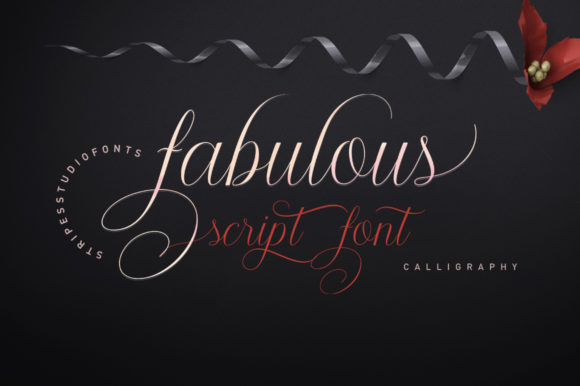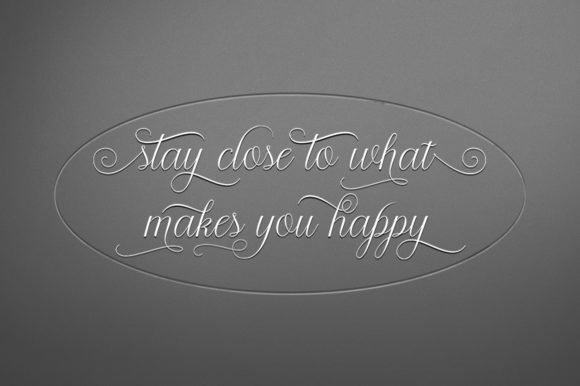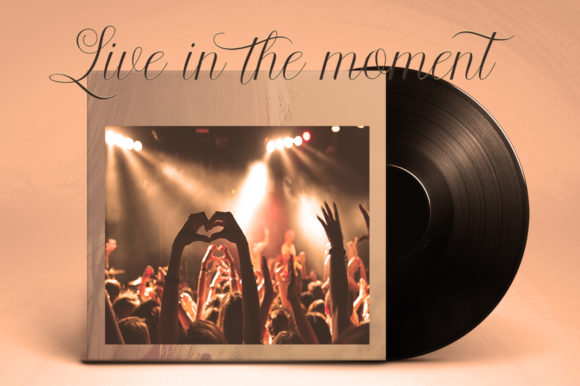
About Fabulous Script Font
The Fabulous Script stands out as a contemporary handwritten script font that effortlessly combines modernity with readability. Designed for ease of use, this font offers a seamless and stylish solution for various design projects, particularly excelling in branding applications.
One of the standout features of The Fabulous Script is its modern aesthetic. The script is crafted with a contemporary touch, making it a relevant and on-trend choice for designers seeking a fresh and stylish look. This modernity is reflected in the clean lines and fluid strokes of the characters.
Readability is a key attribute of The Fabulous Script, ensuring that the text remains clear and legible across different design contexts. Whether used in branding materials, digital media, or print applications, this font prioritizes the ease with which the audience can engage with the content.
The versatility of The Fabulous Script makes it particularly well-suited for branding designs. Whether applied to logos, promotional materials, or other brand elements, the font adds a touch of modern sophistication that aligns with contemporary design trends. Its adaptability across various brand applications makes it a reliable choice for creating a cohesive and visually appealing brand identity.
In summary, The Fabulous Script is not just a font; it’s a modern and readable script designed to enhance branding designs. Its contemporary aesthetic, coupled with its readability, makes it a valuable asset for designers looking to infuse a touch of stylish elegance into their creative projects, particularly in the realm of brand design.